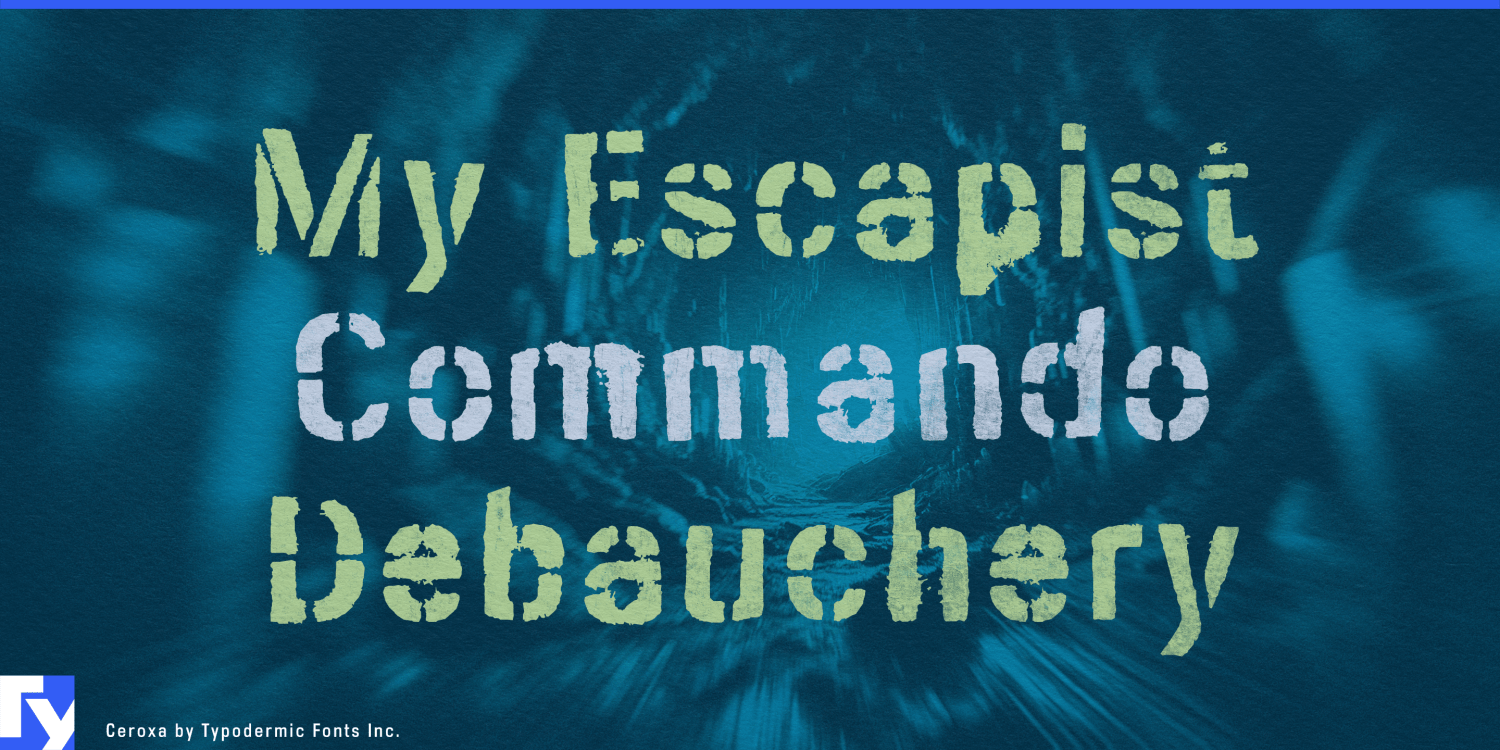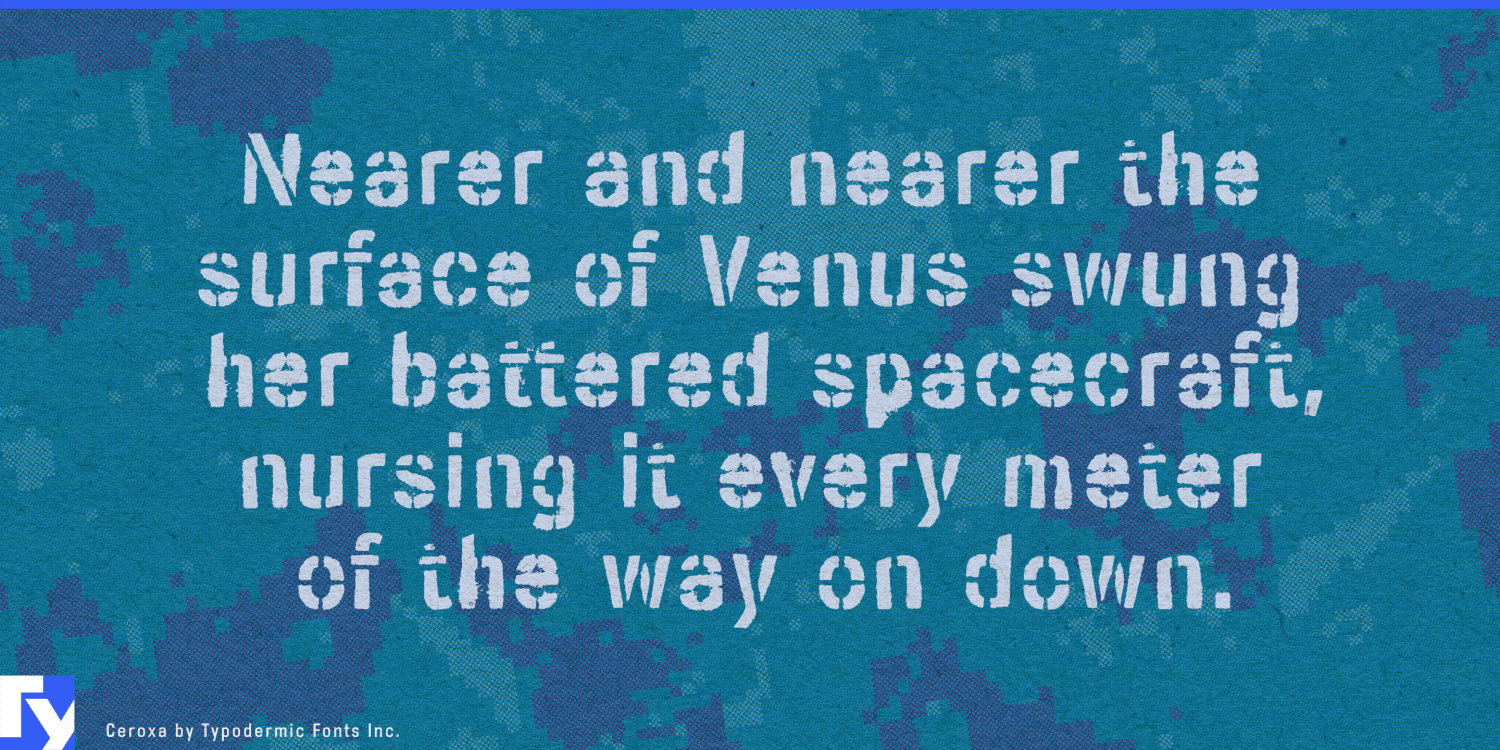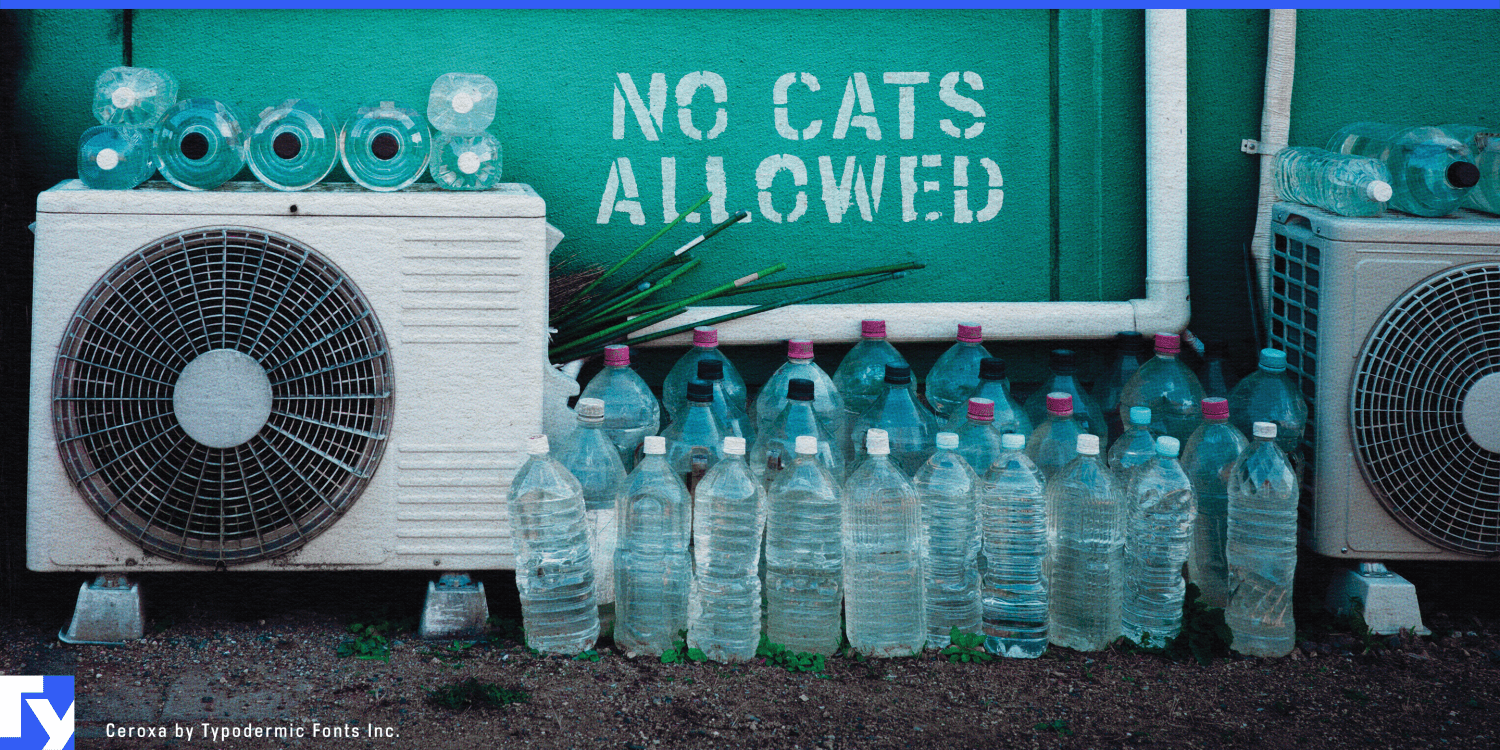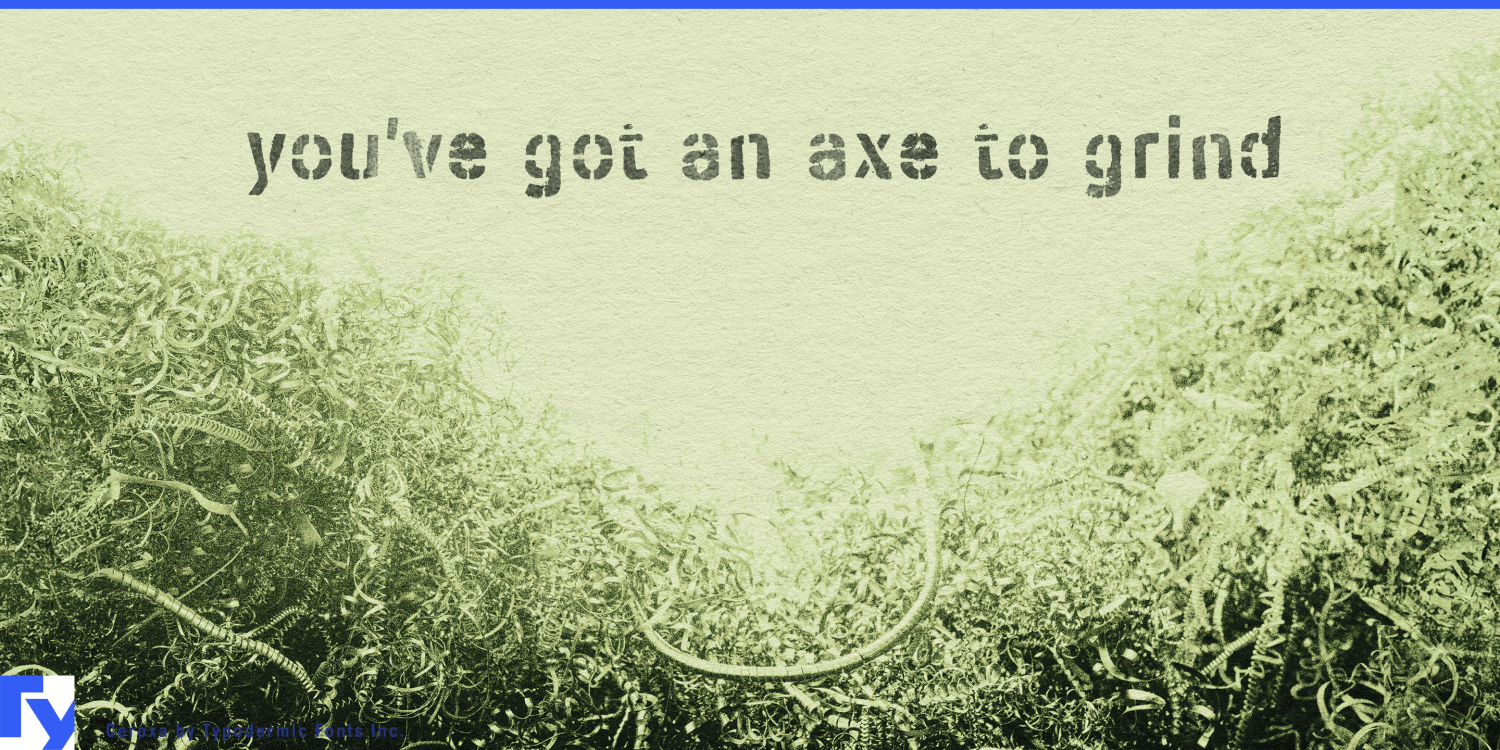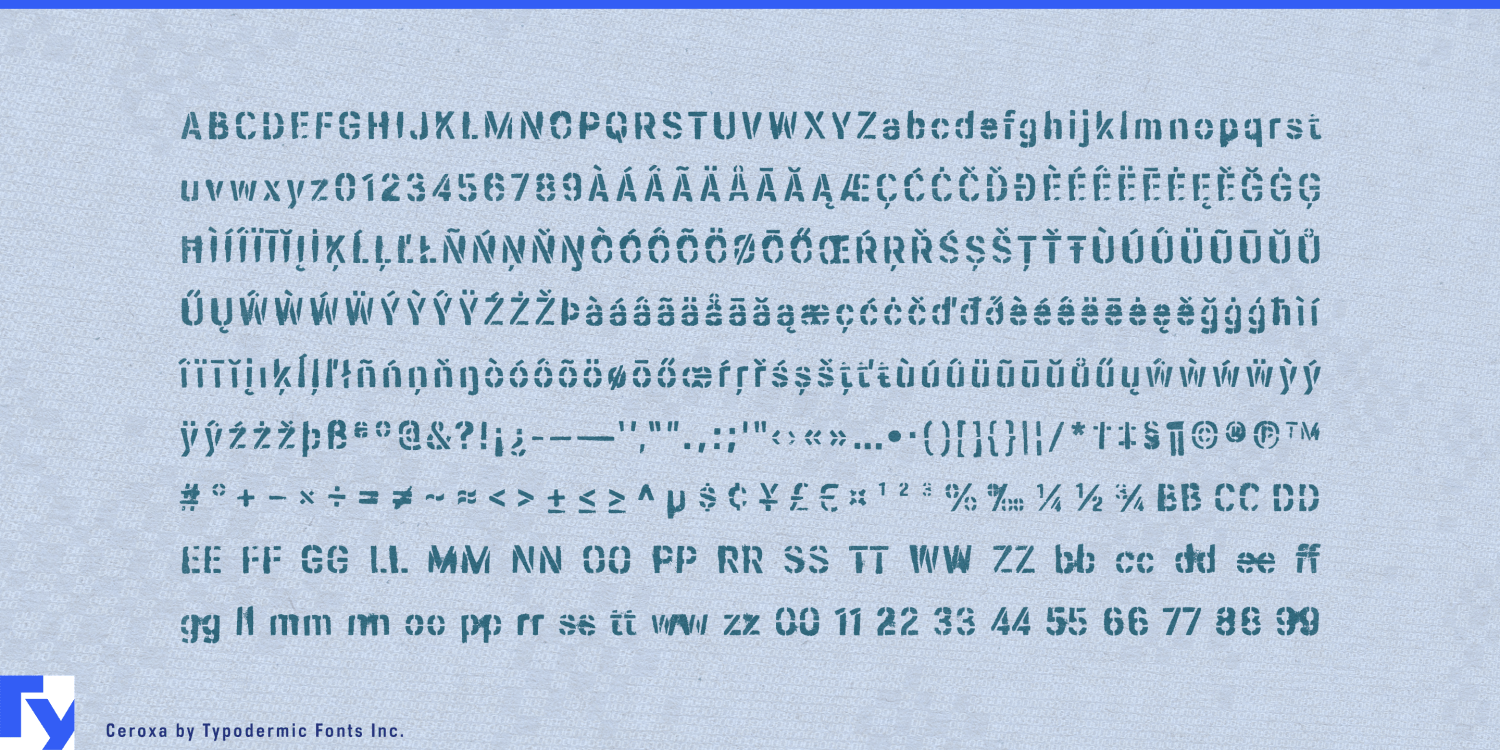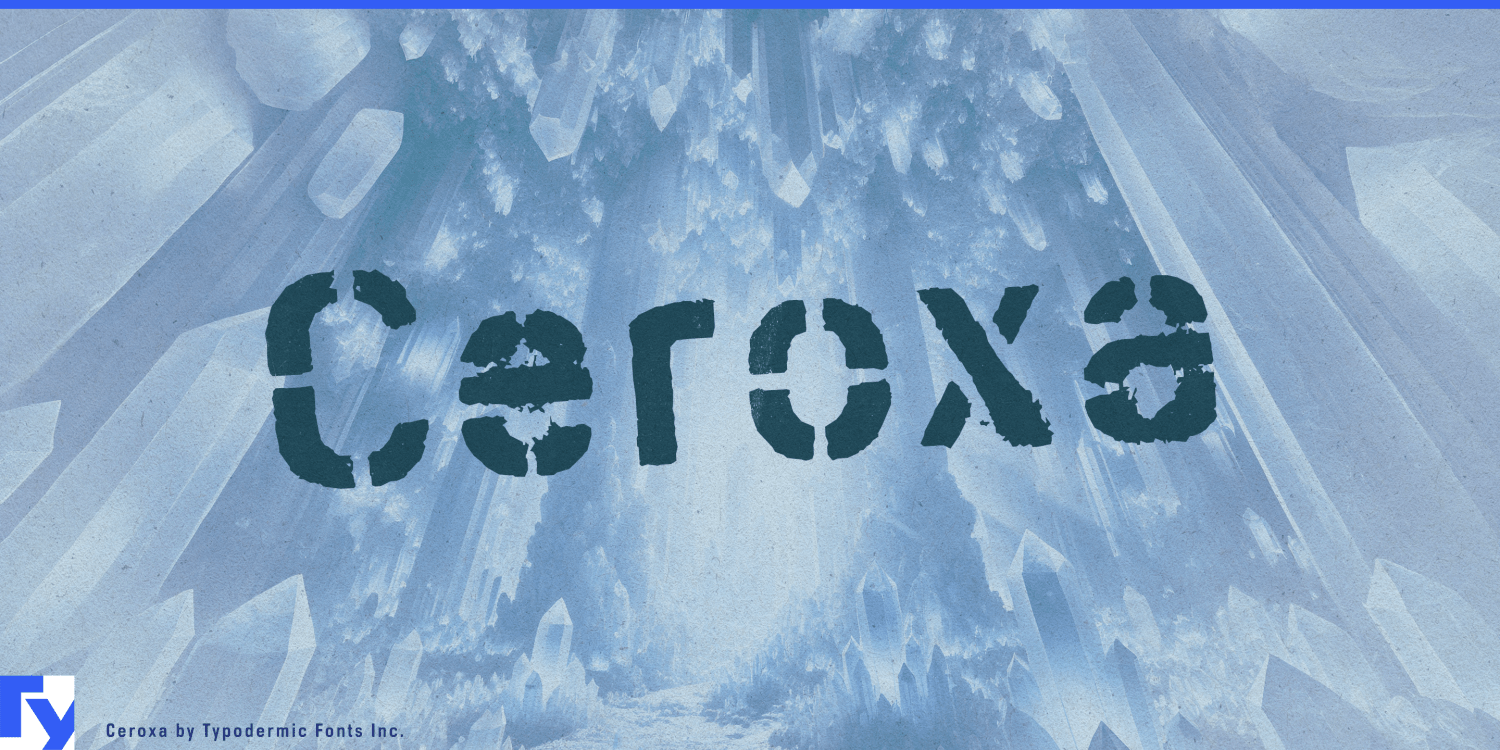
About Ceroxa
Ceroxa erupts onto the design scene, a stencil typeface that embodies the raw, unfiltered spirit of street art. This isn’t just another font—it’s a visual revolt, a typographic manifesto against the mundane. Each character in Ceroxa…